Ever wondered why brands like Coca-Cola invest in unique fonts?
According to Brittney Murphy Design owner and brand identity expert Brittney, this strategy is not just about aesthetics — it's a powerful tool for brand recognition.
In this interview with agency directory DesignRush, Brittney discusses:
- Why developing a custom font can be a game-changer for brand growth
- How brands can effectively align their choice of fonts with their overall identity
- How to get the right fonts
Who Is Brittney Murphy?
Brittney is a font, web, and graphic designer and the owner of Brittney Murphy Design, a boutique studio for typography and font creation. Over the past decade, Brittney has transformed her passion for fonts into a successful business, assisting companies, organizations, and individuals in turning their creative visions into artistic realities.
Brittney Murphy Design has been greatly focused on developing fonts since 2009. The company has over 40 million downloads worldwide by businesses of all sizes, including notable brands like Microsoft and Hilton.
Given this impressive track record, I was curious to hear how the company has navigated such intense competition to achieve these results.
Brittney explains that when she initially started, the industry was much more niche; she entered at the right time and as a newbie designer, it was still possible to get noticed.
However, she mentions that the landscape has significantly changed, especially after the pandemic, with many people seeking remote jobs. This shift has led to a substantial increase in the number of designers and fonts available, making it much more competitive, as she puts it.
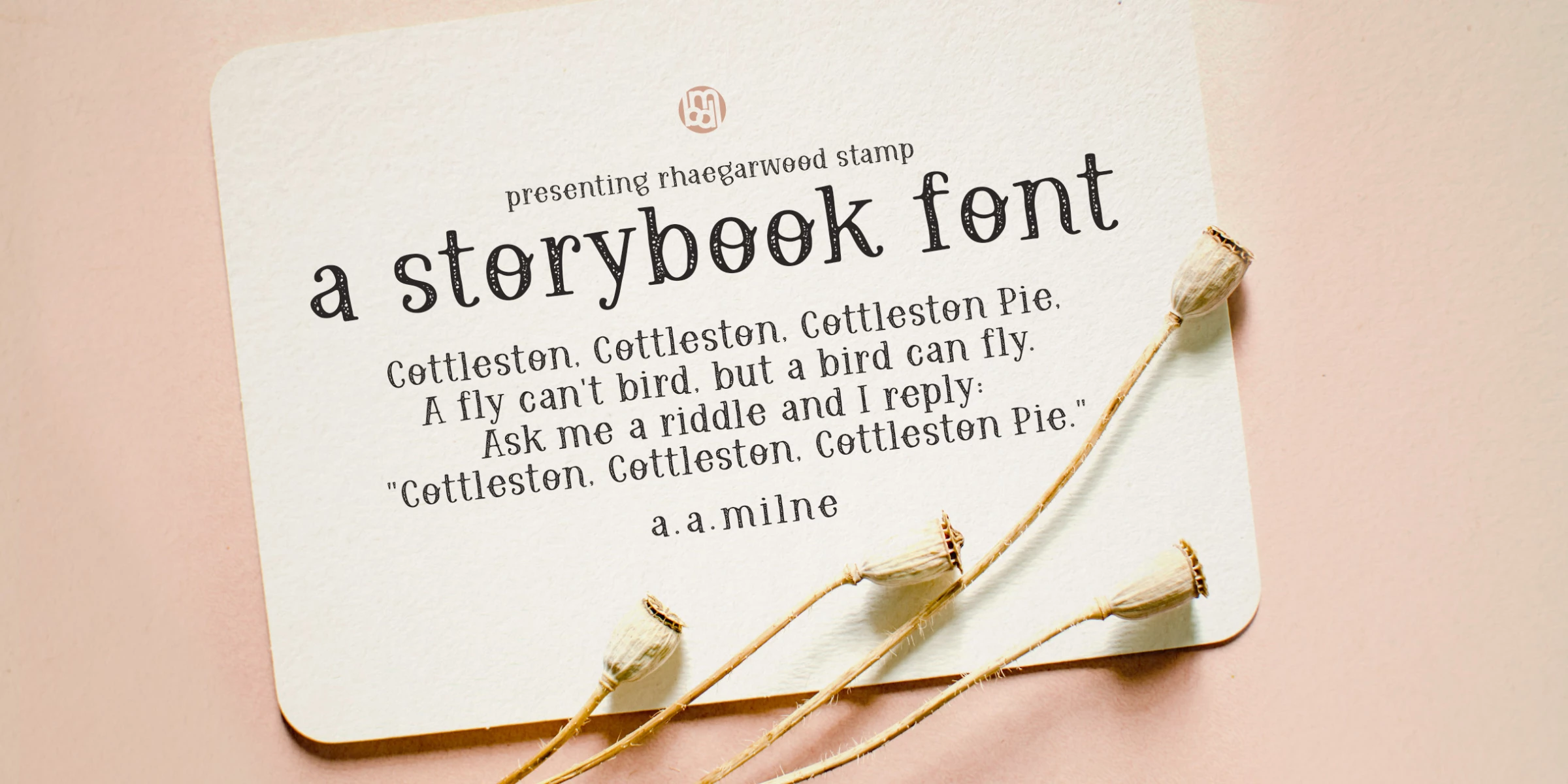
To make her work stand out, she says she focuses on specificity. For instance, she points out that her Letters for Learners font helps kids learn to write, meeting a demand for educational tracing fonts.
Recently, she has also created graphic fonts, which, although not her favorite, have been popular for adding fun to children's materials.
It's about adapting to market demands and creating what stands out, she says.
Custom Fonts Increase Brand Recognition
Companies like Netflix, Airbnb, Apple, and Coca-Cola have created their fonts and made them a part of their visual identity.
Given this, I asked Brittney how important she thinks it is for a brand to have a unique font, and what role font design plays in building and maintaining a brand's distinct character.
“It can help a lot! It’s one thing to flash your logo everywhere, but with an exclusive font, your business can be recognized in more contexts and with more subtlety.
It can also make it easier for a brand to remain consistent across different mediums, and consistency helps create a feeling of reliability and trustworthiness,” she says.
“When it comes to recognizability, exclusive fonts are going to help the most. You’re less likely to get confused with other brands using the same ones,” she notes.
The emotional impact may be even more important, Brittney says.
As philosopher Marshall McLuhan said, "The medium is the message." Fonts add emotional context to your words, so choosing the right one is essential, she explains.
“You can use all the right words, but if they aren’t conveyed in a way that is clear to your audience, it won’t matter. Fonts are a great tool in this regard because they can add emotional context to your message, but you have to make sure it’s the right one.
If you’re unsure about what fonts will suit you best, make several different sample graphics using different fonts and run them by people who fit the demographic you’re trying to reach. (I’ve found that it helps to ask specific questions when you’re looking for feedback. You’re more likely to get insightful feedback that way,)” she suggests.
How to Use 3D Fonts for Branding
Brittney and I discussed 3D fonts, as one of the major typography trends right now. Hence, I asked her what opportunities she sees in using 3D fonts for brand identity.
“I think 3D fonts are fun, but I don’t like to rely on them when it comes to branding. If you do want to use a 3D font, I’d recommend at least choosing a font family that comes with lots of styles.
If you don’t have a non-3D version to fall back on, then you’re going to lose a bit of consistency and recognizability when a 3D version is too busy or doesn’t work in the context of a project.
I’d say the same goes for other trendy styles. Fonts that stand out are great and you certainly want to use them, but I’ll always choose a family with more toned-down versions as well over one without just because you’ll be able to use it in a lot more places.”